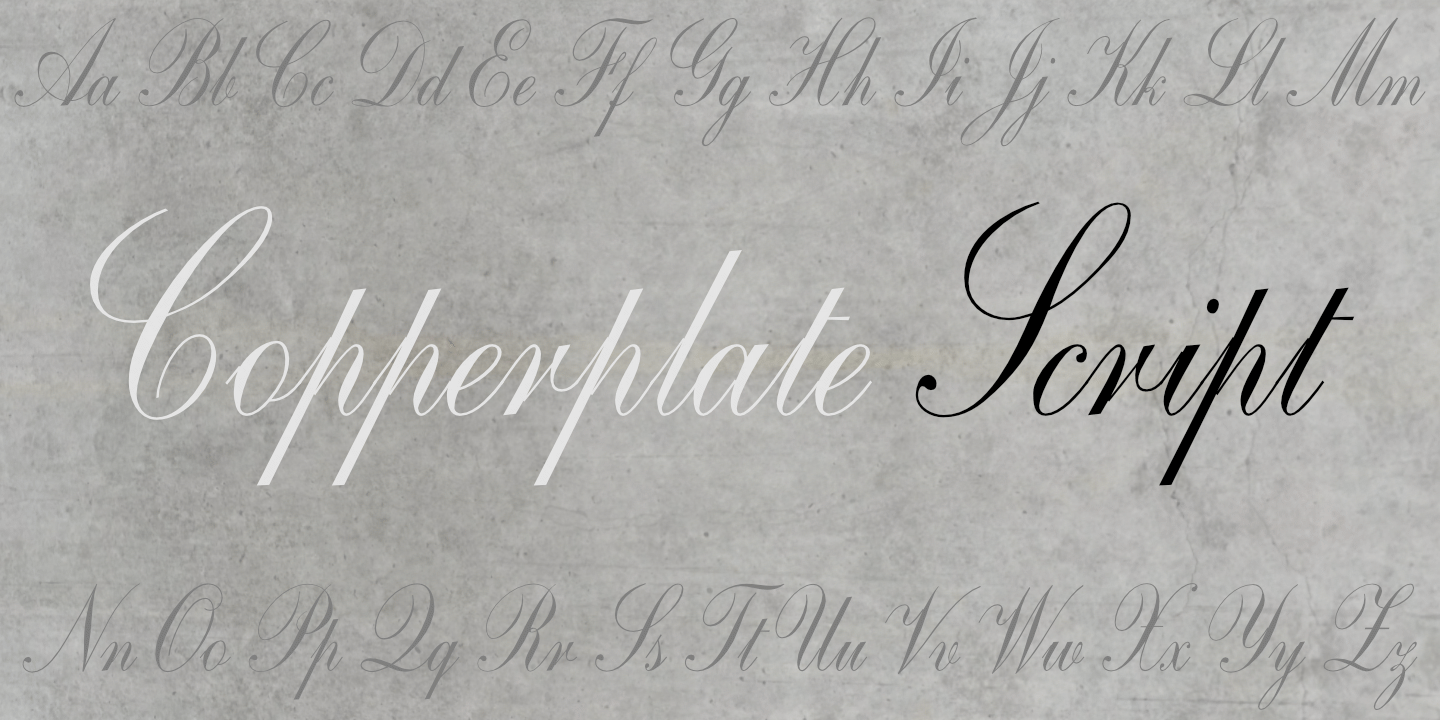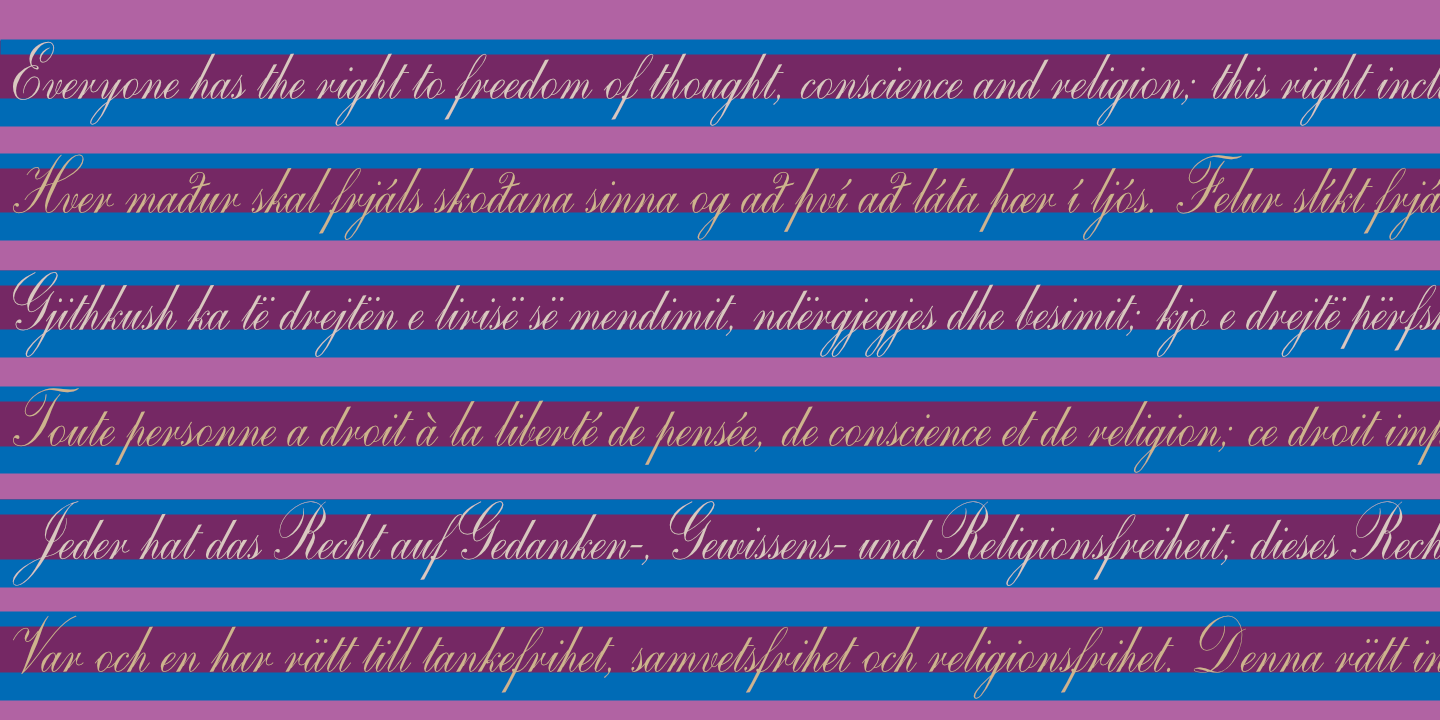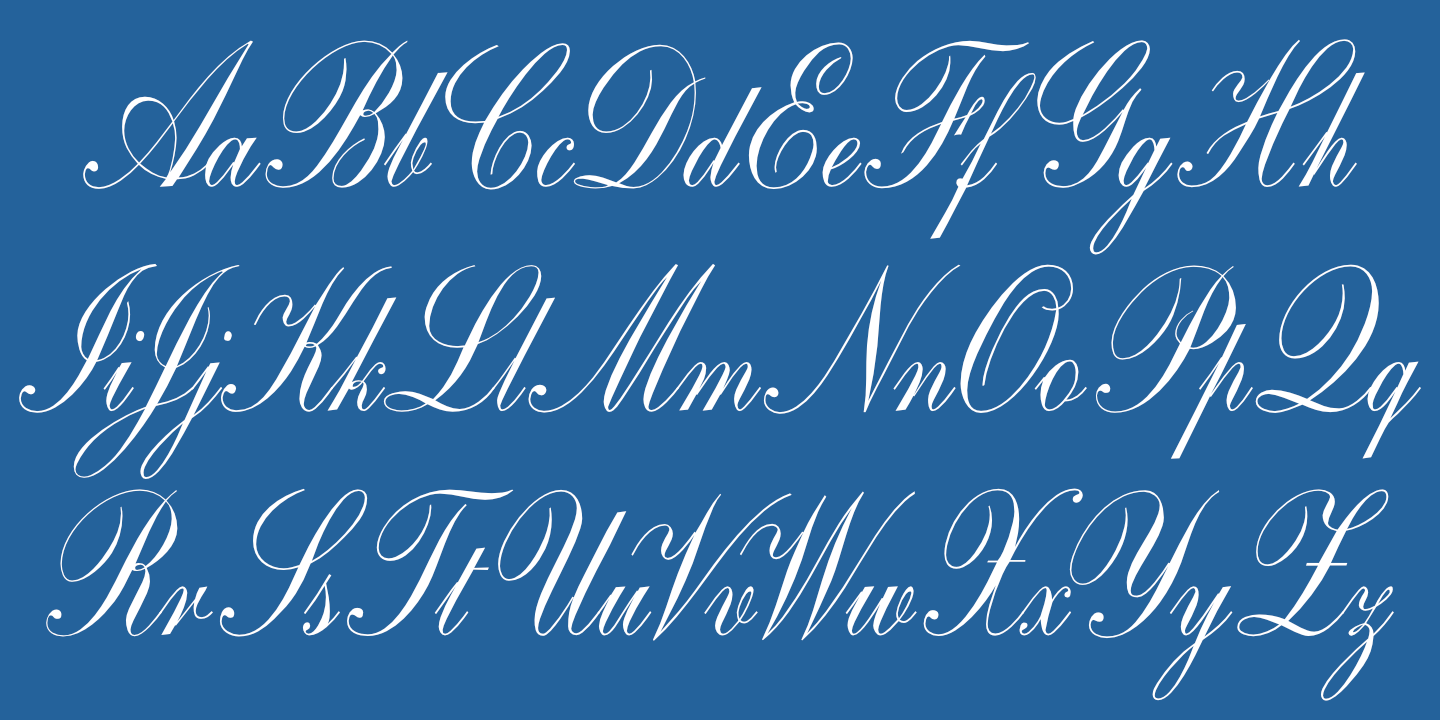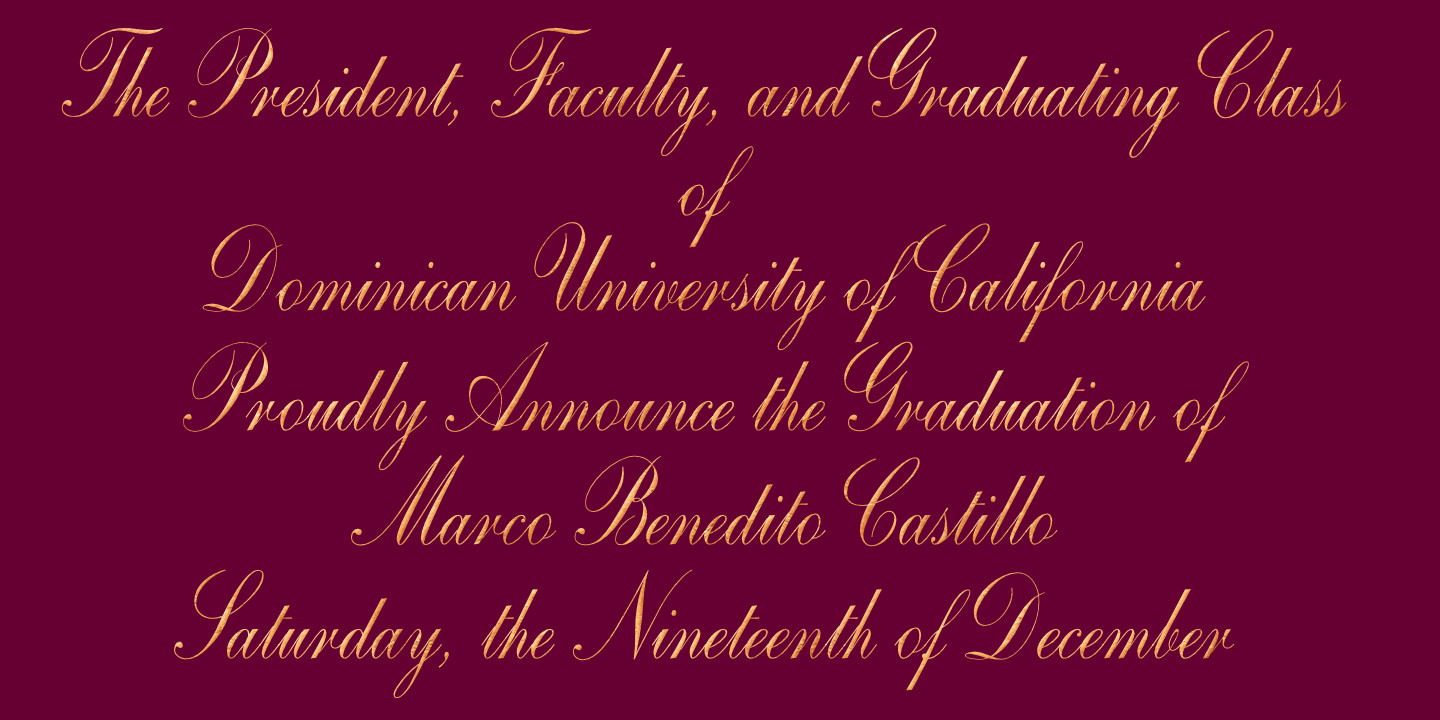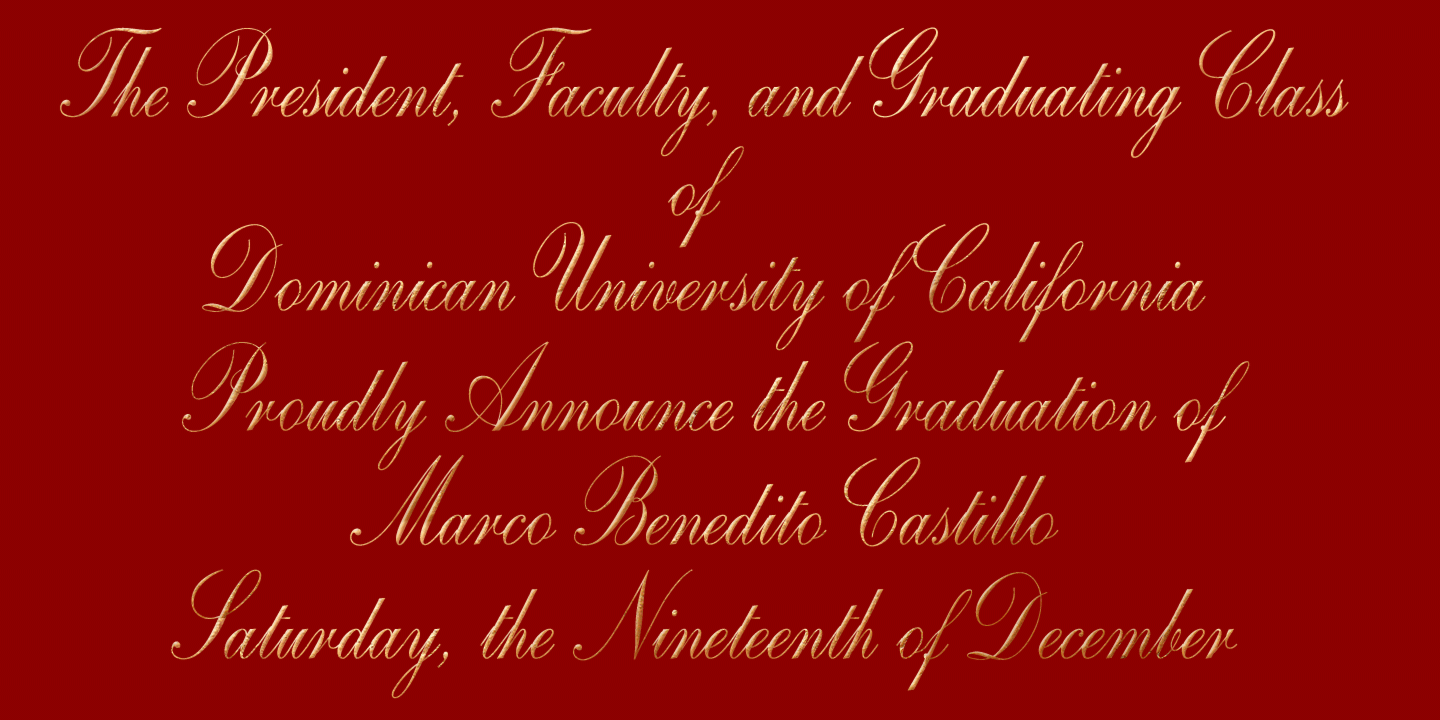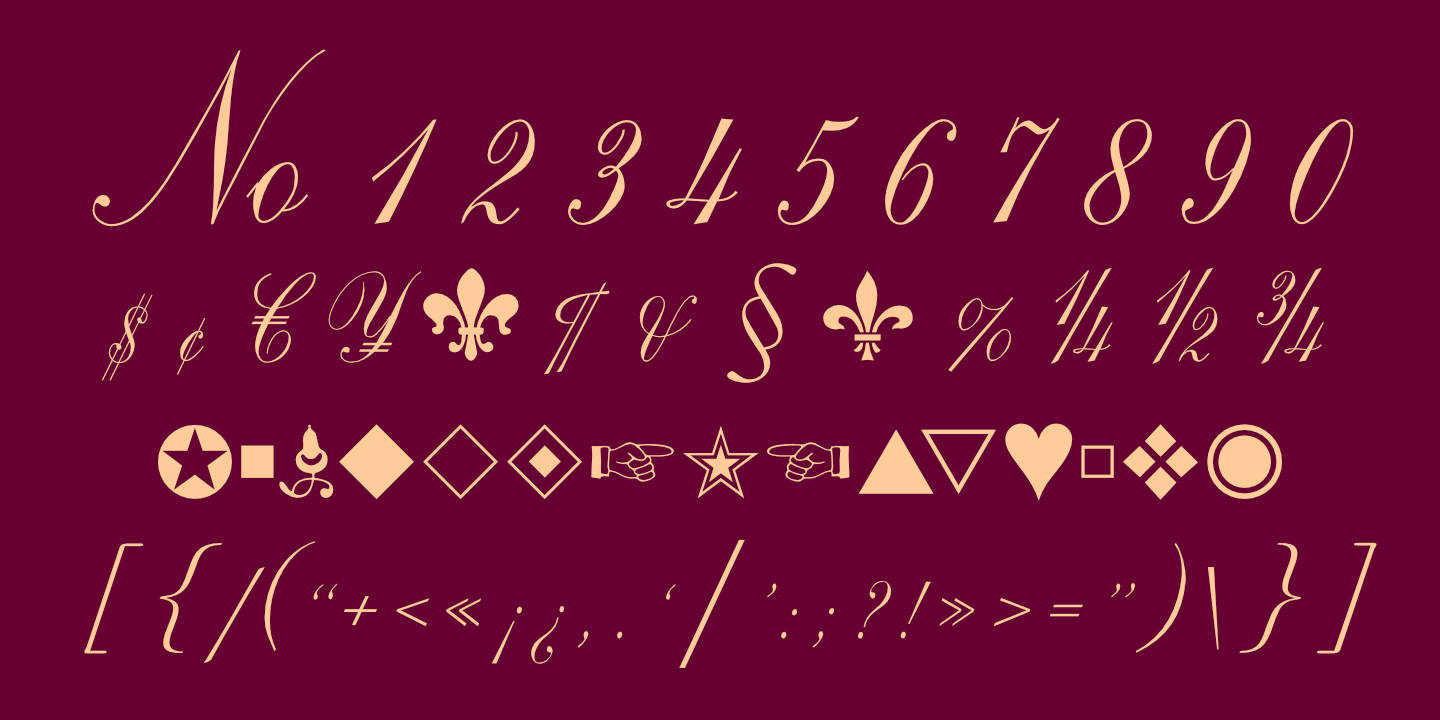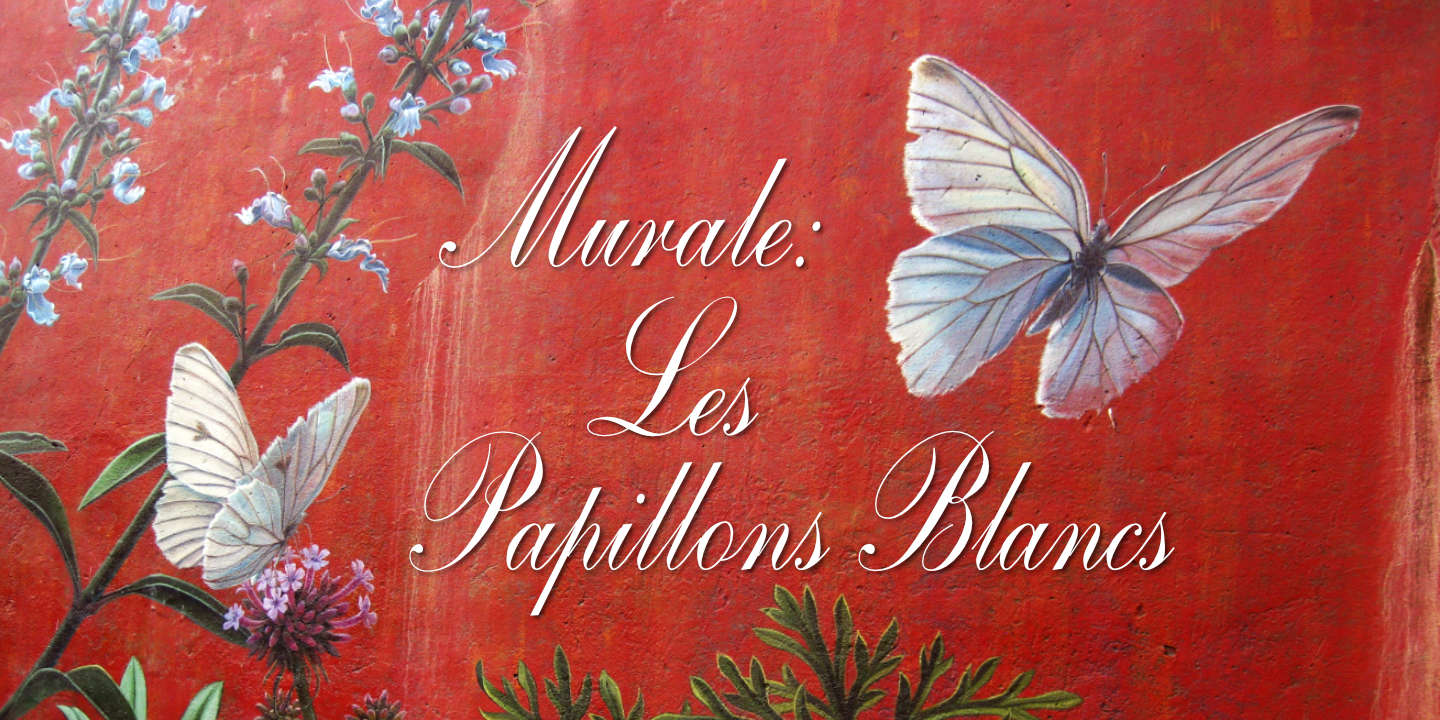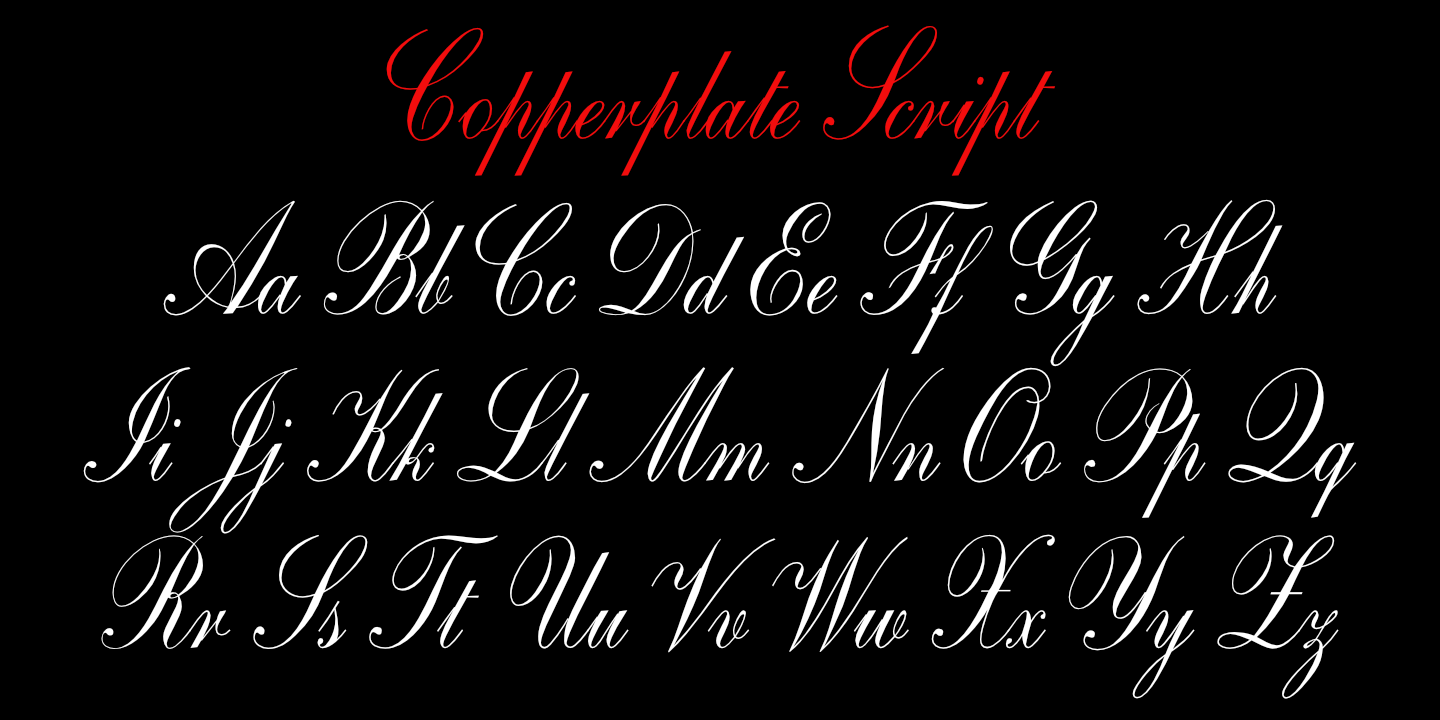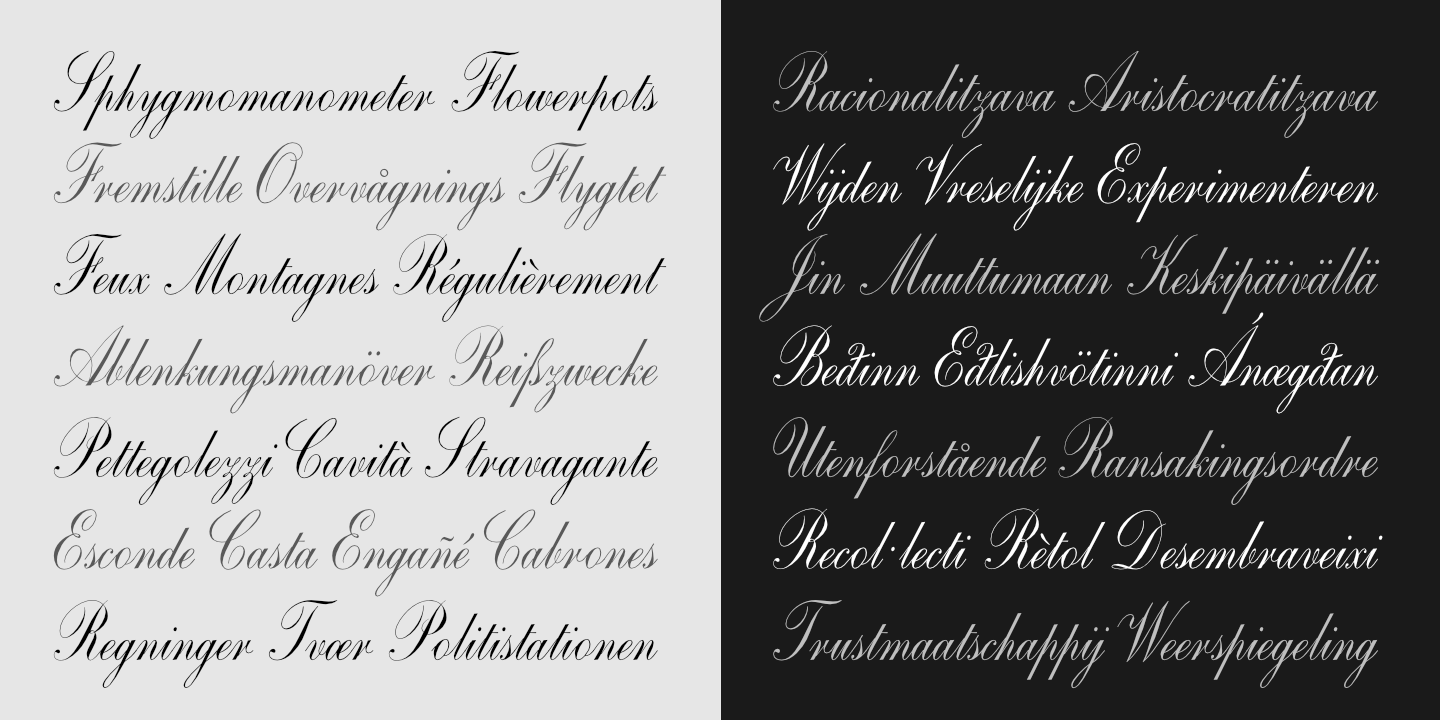
Copperplate Script supports many western European languages. See Glyphs for details.
Copperplate Script: Numerals, basic punctuation, currency symbols, and a sampling of ornaments.
Copperplate Script supports many western European languages. See Glyphs for details.
Copperplate Script is perfect for formal announcements.